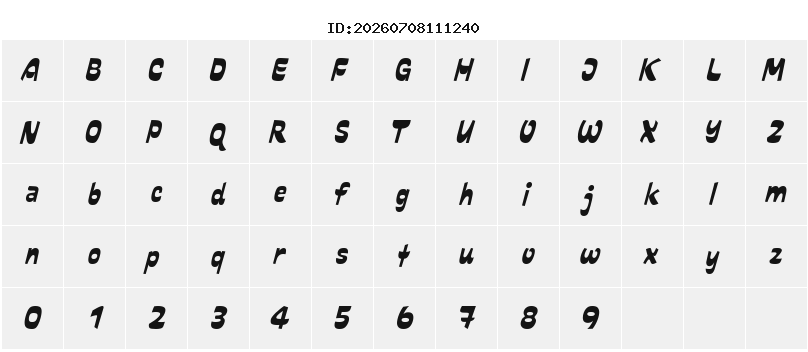
• Font Name: Dalcora
• Full Font Name: Dalcora
About Dalcora.ttf
Dalcora.ttf is a modern, elegant sans-serif font designed for ultimate readability and visual harmony. Perfect for branding, headlines, web design, and print materials.